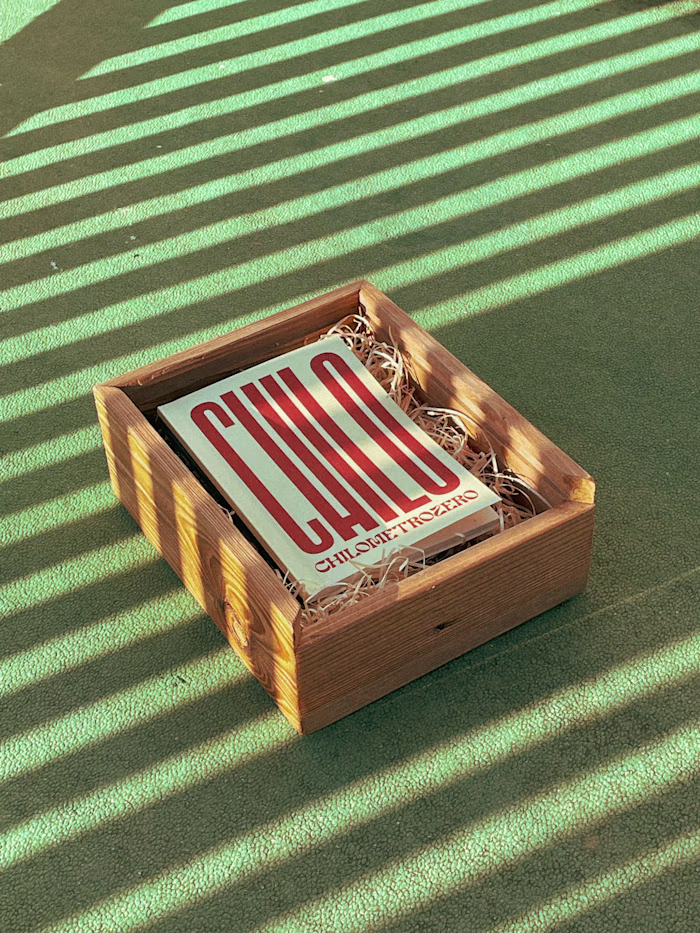
Typeface - Straight Line-
Giada  Donnangelo
I created a font starting from the straight line and with the help of a grid, a invented by me, I developed the whole alphabet, later adding both numbers and punctuation. What came out of it is a cutting-edge and innovative typeface. Finally, I paginated the whole process of making each letter into a book.
A font made of lines